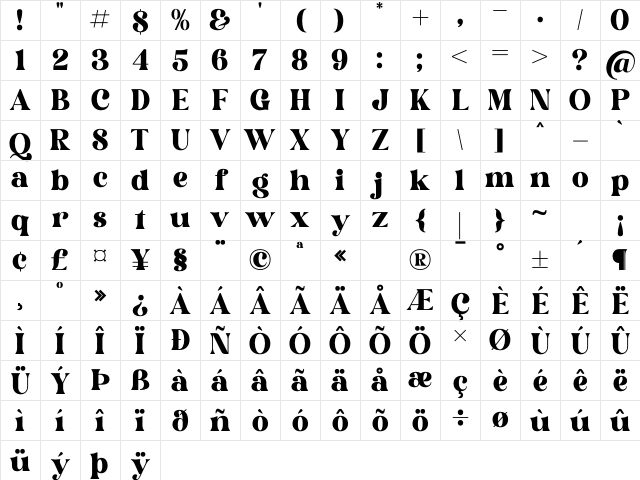
Hustle Bright Regular
Foundry: Letterena Studios
Designer: Heru Utama Putra
Design Context for Hustle Bright
Hustle Bright is a composed and adaptable typeface that performs quietly and consistently across a wide range of design contexts.
Pro Tip: Use Hustle Bright in both headline and body roles to test its range before committing to a single application.